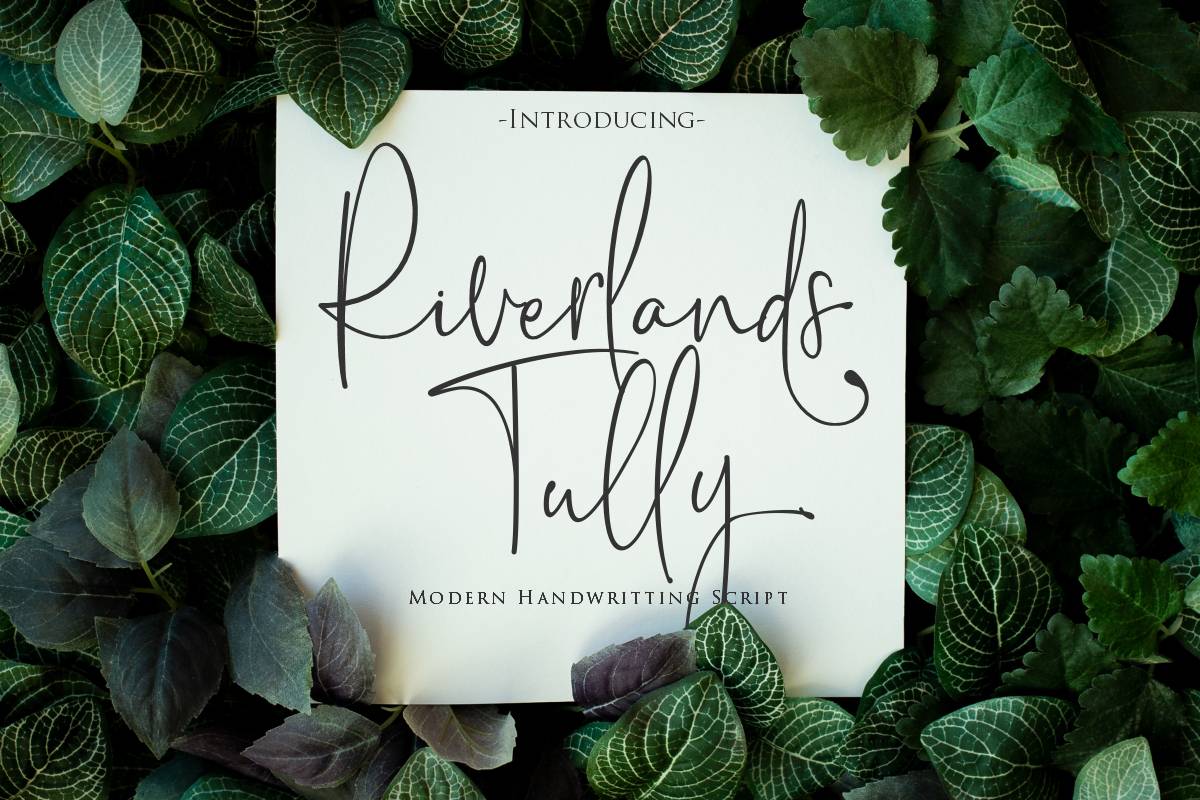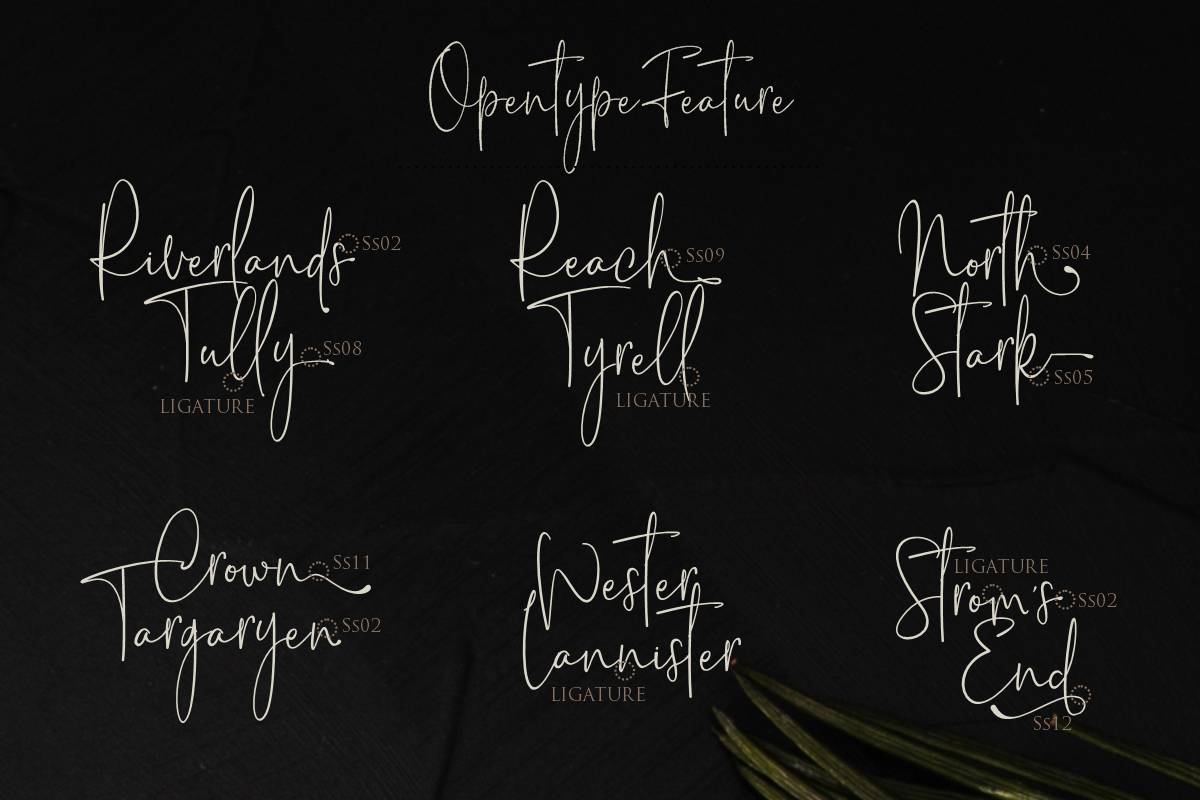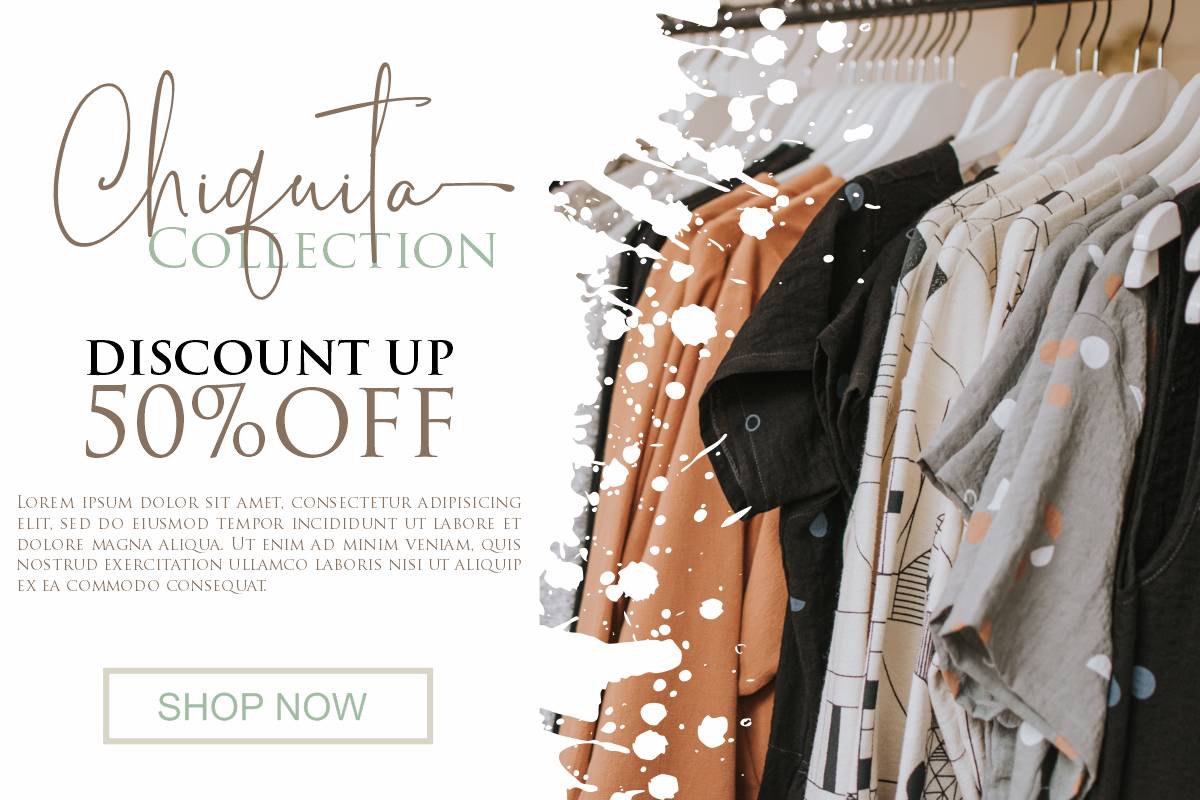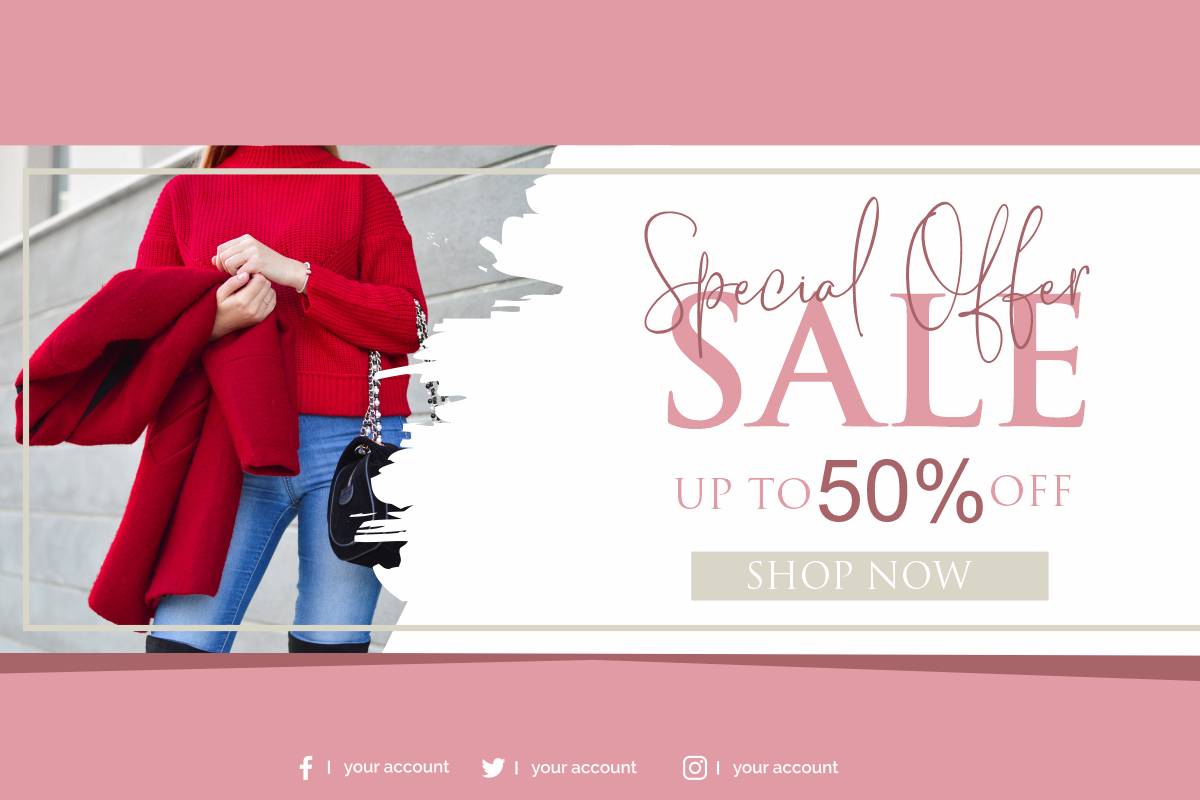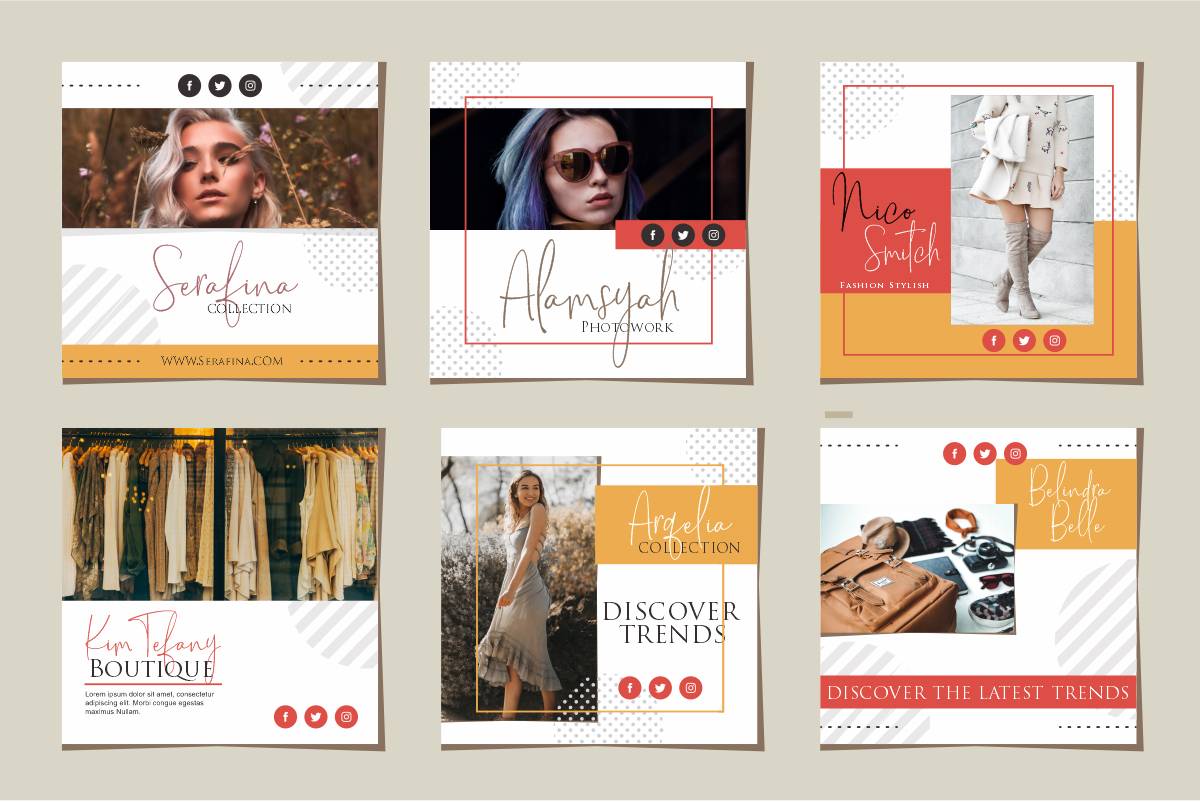
Riverlands Tully is a delicate, handwritten script font characterized by thin, airy strokes and a whimsical, playful style. Its tall, narrow letterforms with varied looping and flowing connections give it a casual yet elegant feel, ideal for creative, personal branding and artistic projects. This font works beautifully in invitations, logos, and social media graphics where a light, expressive touch is desired.
Riverlands Tully Font
About Riverlands Tully Font
| Font family | Riverlands Tully Font |
| Release date | 2019-11-28 |
| Designer | Gilar Studio |